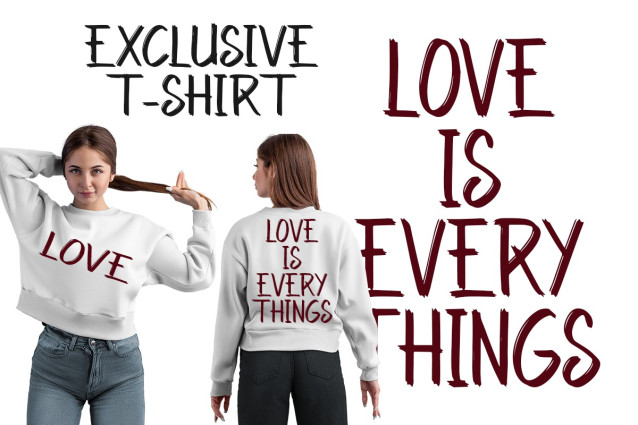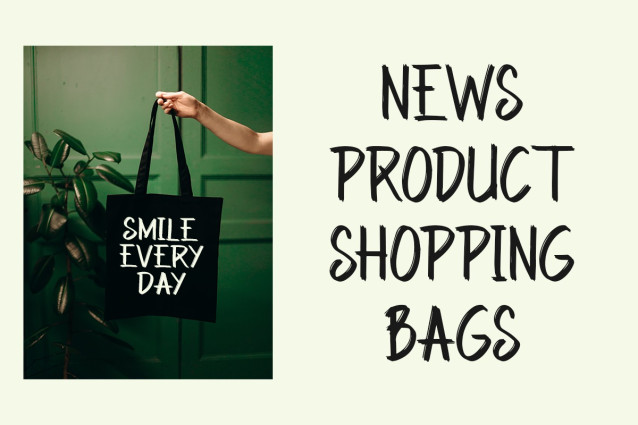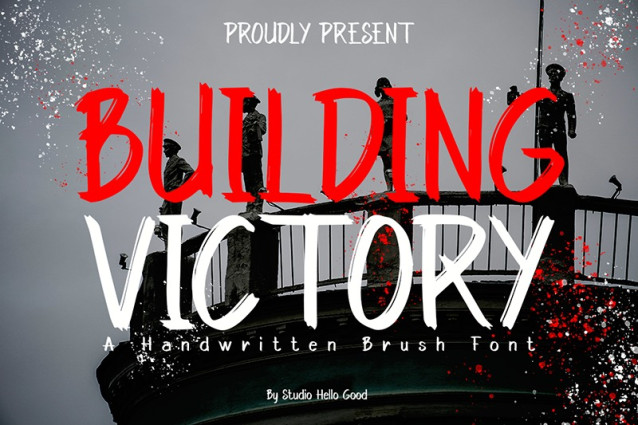
Building Victory Font
Building Victory Font, a charming and versatile handwritten font that brings a sense of warmth and whimsy to your creative projects. Whether you’re crafting a captivating book, a lively cartoon, or a compelling movie title, Building Victory adds a delightful touch of handcrafted elegance that captivates audiences of all ages.
With its gentle curves and organic strokes, Building Victory exudes a playful yet sophisticated vibe, making it the perfect choice for projects that aim to enchant and inspire. Each letter is imbued with a sense of personality and charm, creating a unique and inviting visual experience.
In the realm of books, Building Victory adds a touch of whimsy and wonder to every page. Its handwritten style infuses text with a sense of authenticity and intimacy, inviting readers to immerse themselves in the story and characters.
For cartoons and animated content, Building Victory becomes a lively character in its own right. Its expressive nature adds depth and emotion to dialogue, captions, and titles, enhancing the overall visual storytelling experience and captivating audiences with its playful charm.
In movies, Building Victory sets the stage for captivating narratives and memorable moments. Whether used in titles, subtitles, or promotional materials, this font adds a touch of handmade elegance that resonates with viewers and leaves a lasting impression.
Embrace the enchanting allure of handwritten elegance with Building Victory. Let its whimsical charm elevate your books, cartoons, and movies, turning every project into a celebration of creativity and imagination. With Building Victory, victory is not just built—it’s crafted with style and grace.